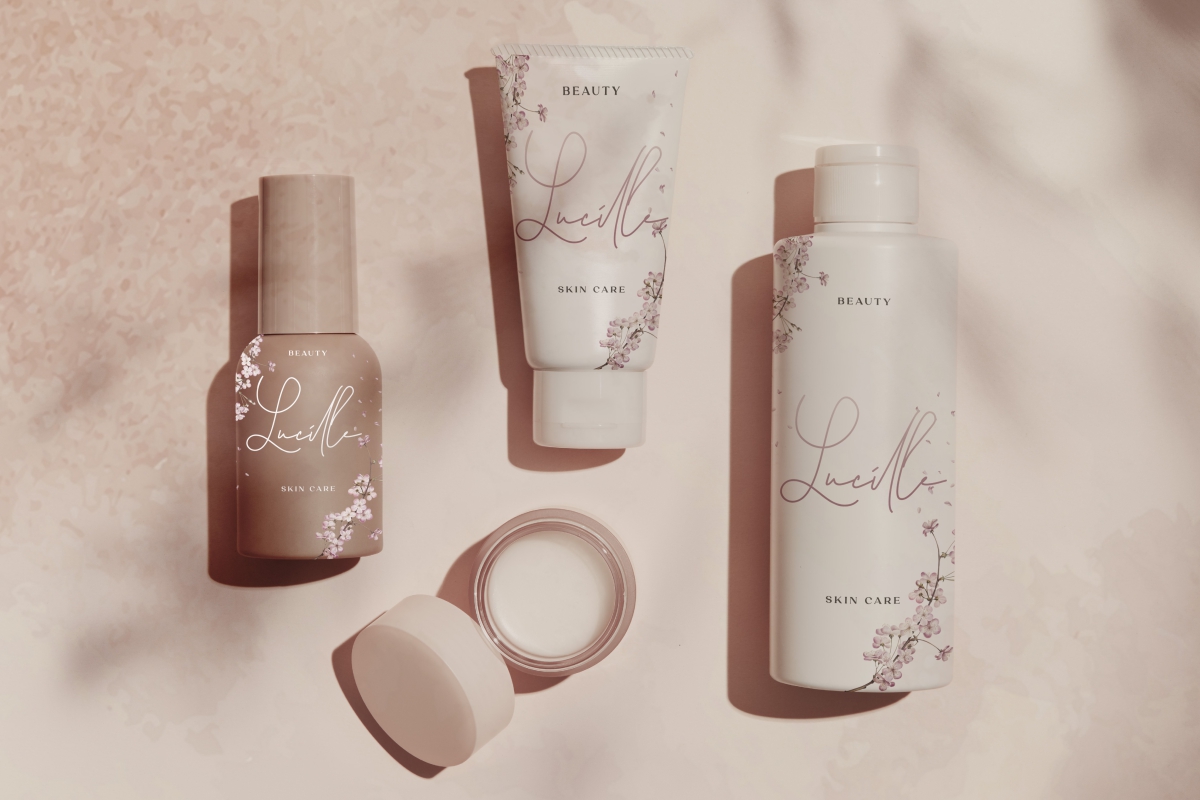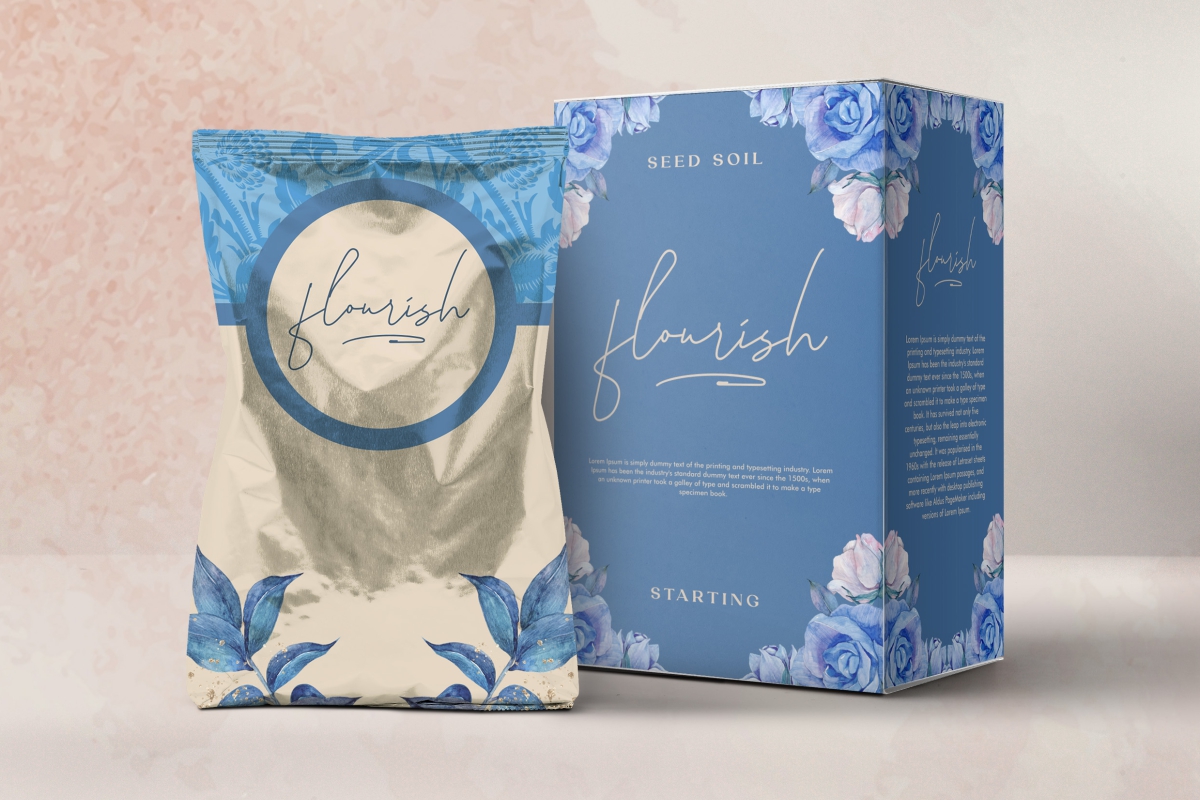
Via Abigail Font
Via Abigail Script Font
This is a modern signature with free flowing monoline by NihStudio can be use to create almost any type of design project such as printed materials. Via Abigail lends itself perfectly to book title, clothing brand, craft, cosmetic, florist, greeting card, label, packaging, quote art, signature style logo, stationery, wedding design or any purpose to make your design look pretty and trendy.